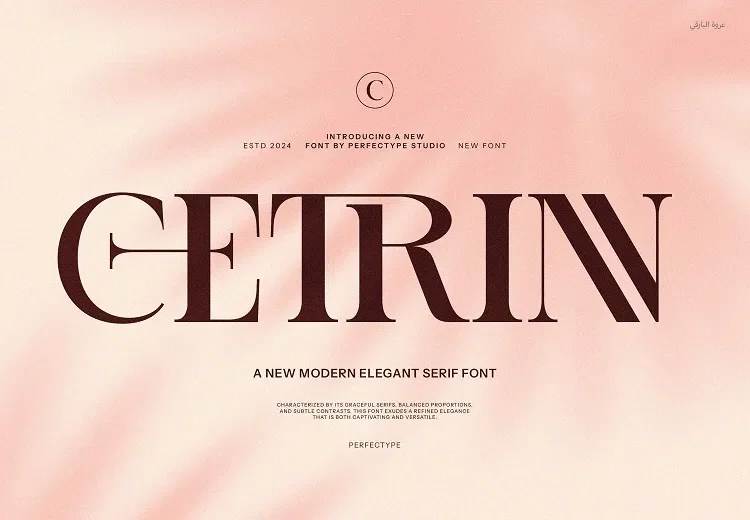
Cetrinn Font
Cetrinn is a contemporary serif font that blends modern elegance with a clean, minimalistic design. Its straight-edged structure, complemented by subtle curves, lends a sophisticated and professional appearance ideal for various design needs.
Key Features of Cetrinn Font:
• Modern Elegance: Cetrinn’s sleek lines and minimal design elements ensure a stylish and up-to-date look, making it perfect for professional applications.
• Versatile Design: The font’s combination of straight edges and gentle curves provides a refined aesthetic that enhances its versatility. It is well-suited for a range of uses, including headlines, logos, and branding materials.
• Professional Appeal: Cetrinn is designed to create a business-like appearance, making it an excellent choice for projects that require a polished and sophisticated touch.
• Stylish Presentation: Whether used for print or digital media, Cetrinn adds a touch of elegance and professionalism to any design.